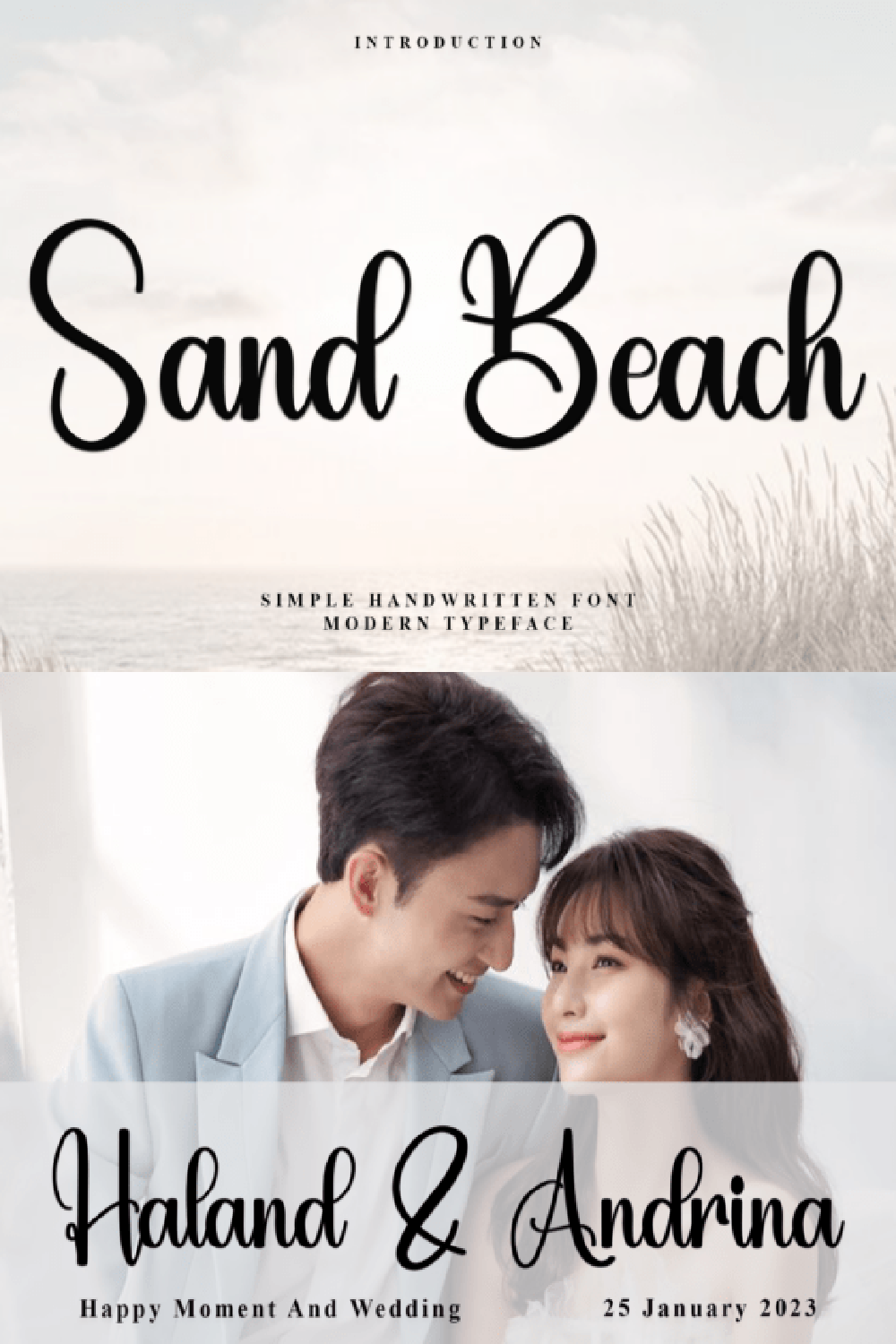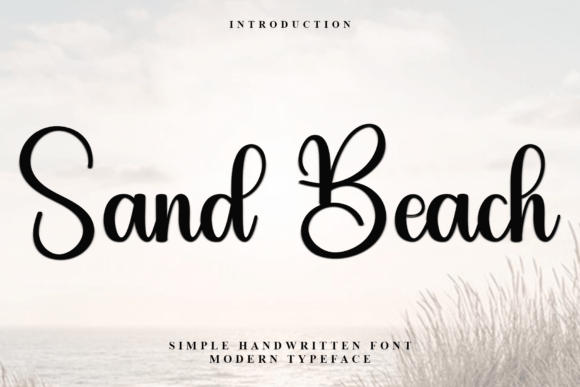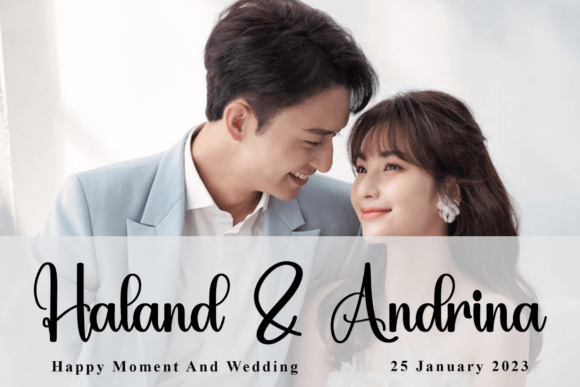
Sandbeach Font: Elegant Handwritten Script for Wedding & Branding
About the Sandbeach Font
Add a touch of class to your work with the Sandbeach Font, a truly exceptional typeface. SandBeach is a beautiful and eye-catching font designed with a soft, unique touch. Its distinctive strokes give it a special character, making it meaningful and versatile for future use. With various characters, it’s perfect for design projects, crafts, and other creative works.
Sandbeach Font Usage Examples